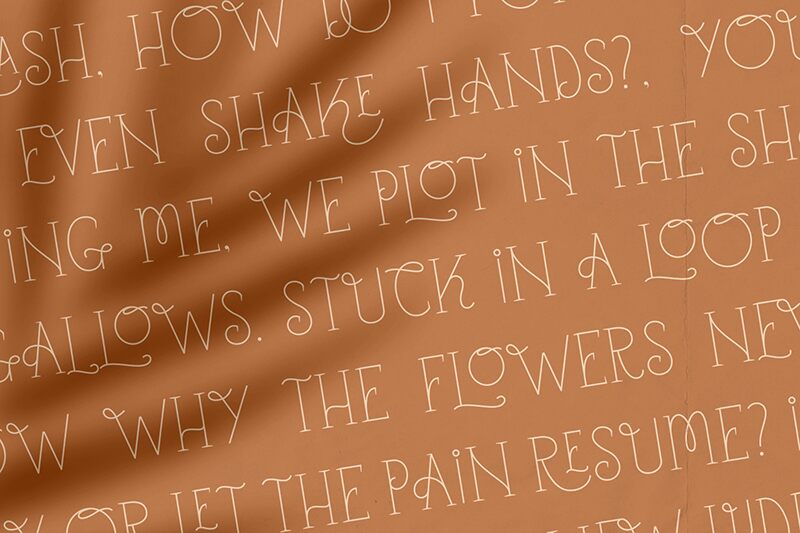
Elysia font by FactoryType is a light, condensed display font with a modern style inspired by vintage neogothic lettering. It holds an elegant yet artistic appearance that leans on modern serif influences. With its sophisticated and graceful aesthetic, Elysia has stylized details that make it refined and pleasing to the eye.
Elysia is perfect for branding, wedding invitations, magazine illustrations, posters, packaging designs, logos, book covers, labels, advertisements, brochures, and social media graphics. Download this free font in your next creative project immediately!